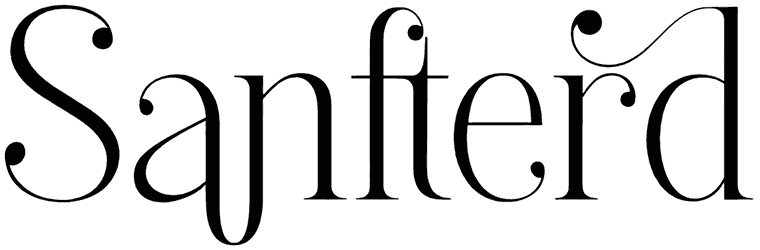
Sanfterd Font
Let’s design the words of your project with this elegant serif font to make it impressive and noble. The Sanfterd font has a great support of characters, and you can use this letterform for any design. Set this basic font on your next layouts, such as a business card font for an artist, and have a timeless and chic presentation.